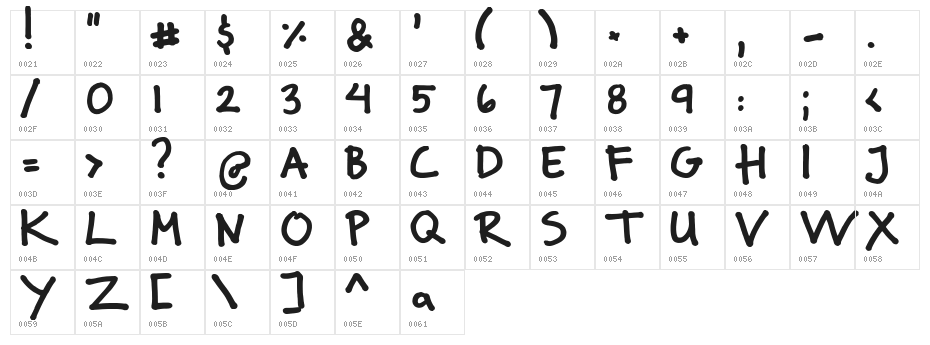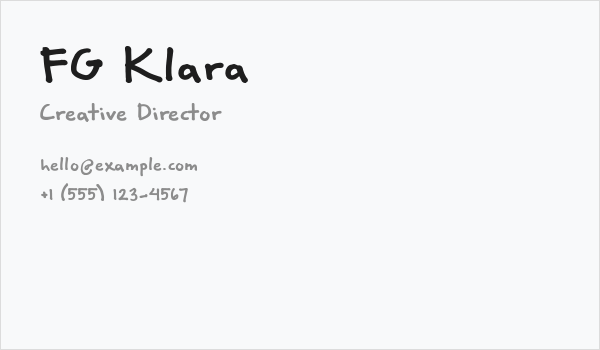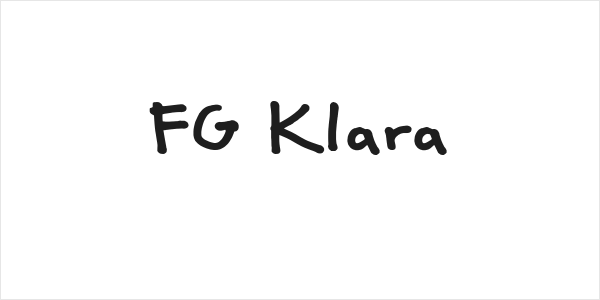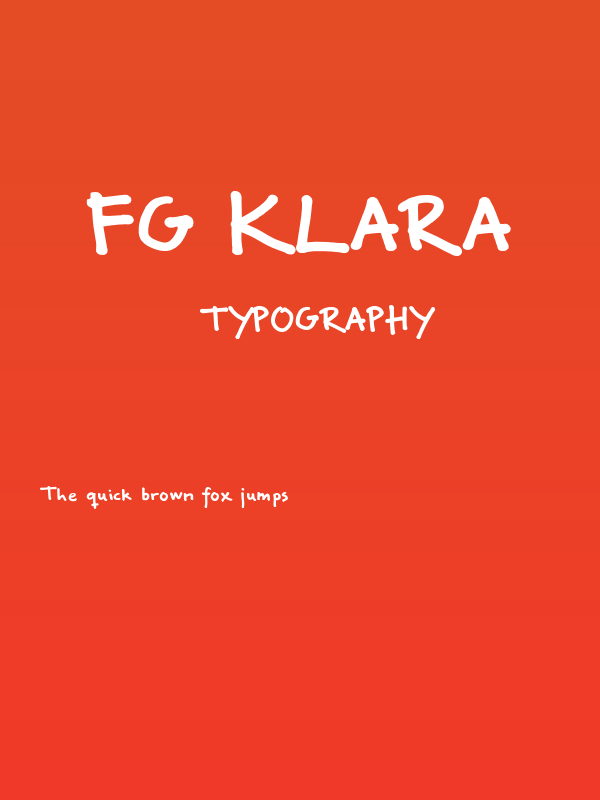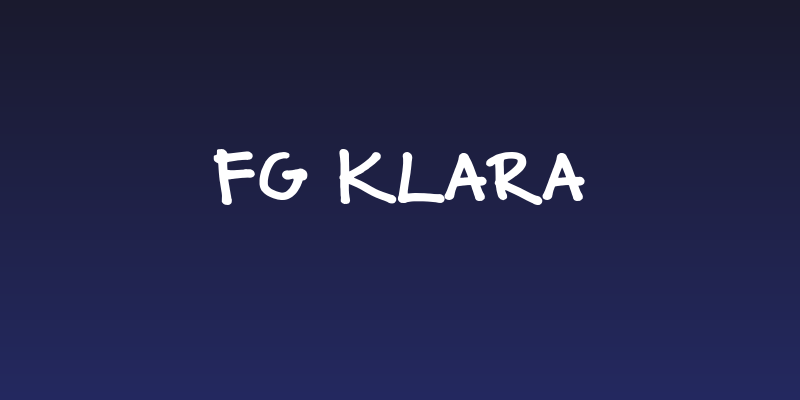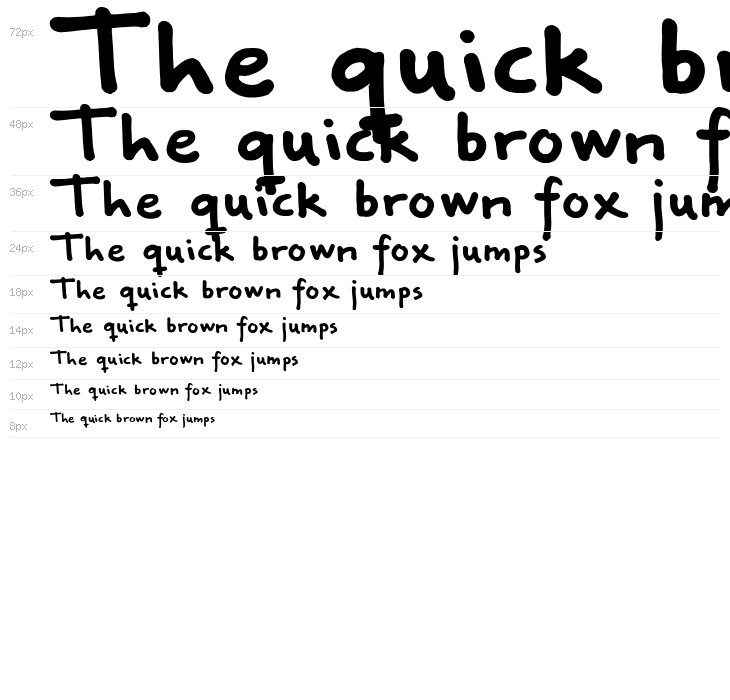
FG Klara Font
FG Klara Description
This font features a playful, handwritten style with a casual and informal appearance. The letters are slightly irregular, giving it a personal and approachable feel. The uppercase and lowercase characters maintain a consistent flow, with rounded edges and a slight tilt that adds to its charm. The numerals and special characters follow the same style, ensuring uniformity across all glyphs. The overall look is friendly and inviting, making it suitable for projects that require a touch of personality and warmth.
| Use Case | Headlines, Informal text, Personal projects |
| Proposed Projects | Ideal for greeting cards, children's books, personal blogs, and informal branding. |